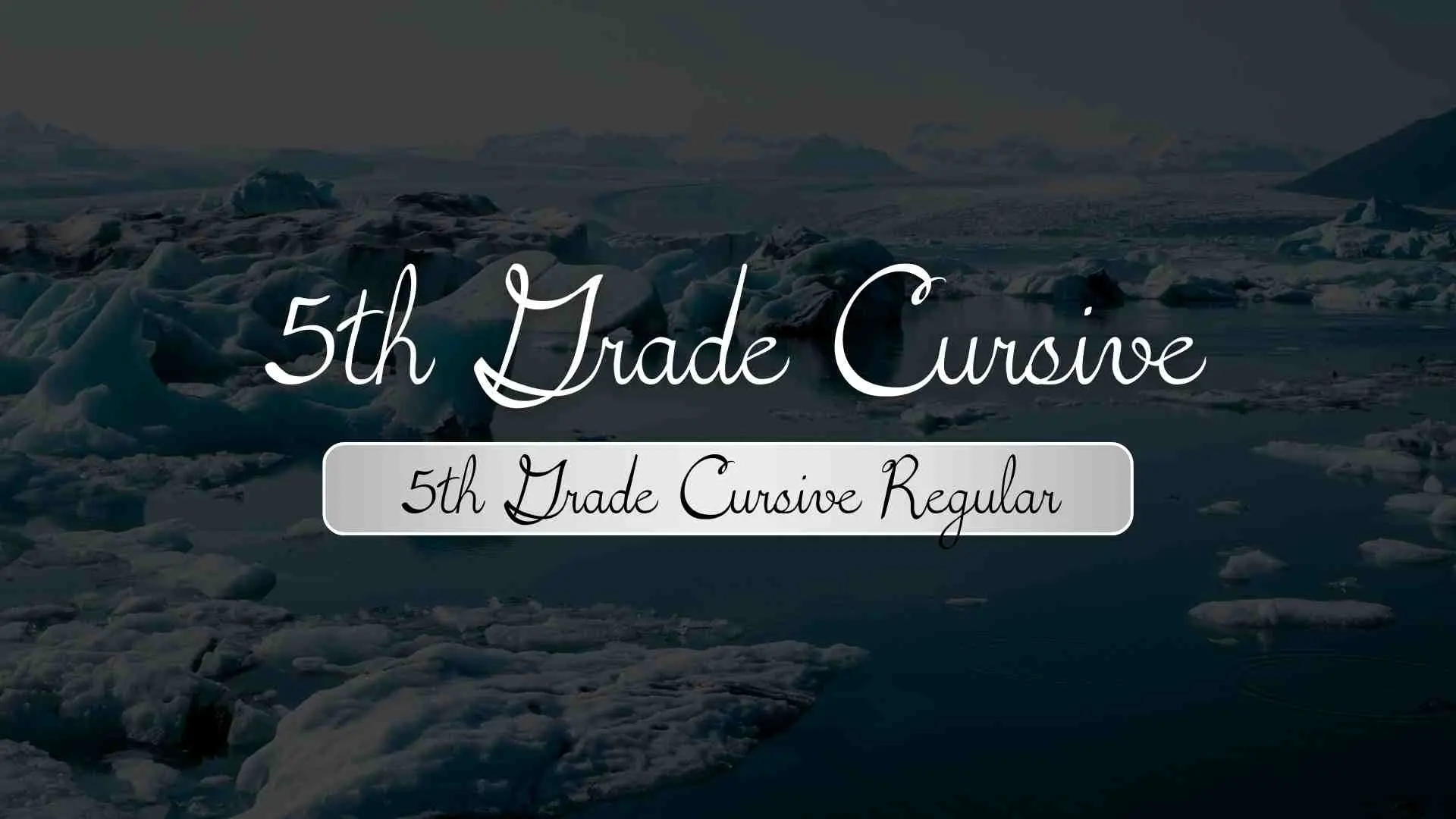
The font 5th Grade Cursive Regular, designed by Lee Batchelor, falls under the Display, Handwritten category & 5th Grade Cursive font family. Its smooth, flowing letterforms make it a versatile choice for projects that require both elegance and readability. 5th Grade Cursive is particularly well-suited for Book Title, Book Text, Branding, Headlines, Titles, Advertising and Book covers. With its balance of simplicity and decorative appeal, this font brings a polished touch to both personal and professional designs.